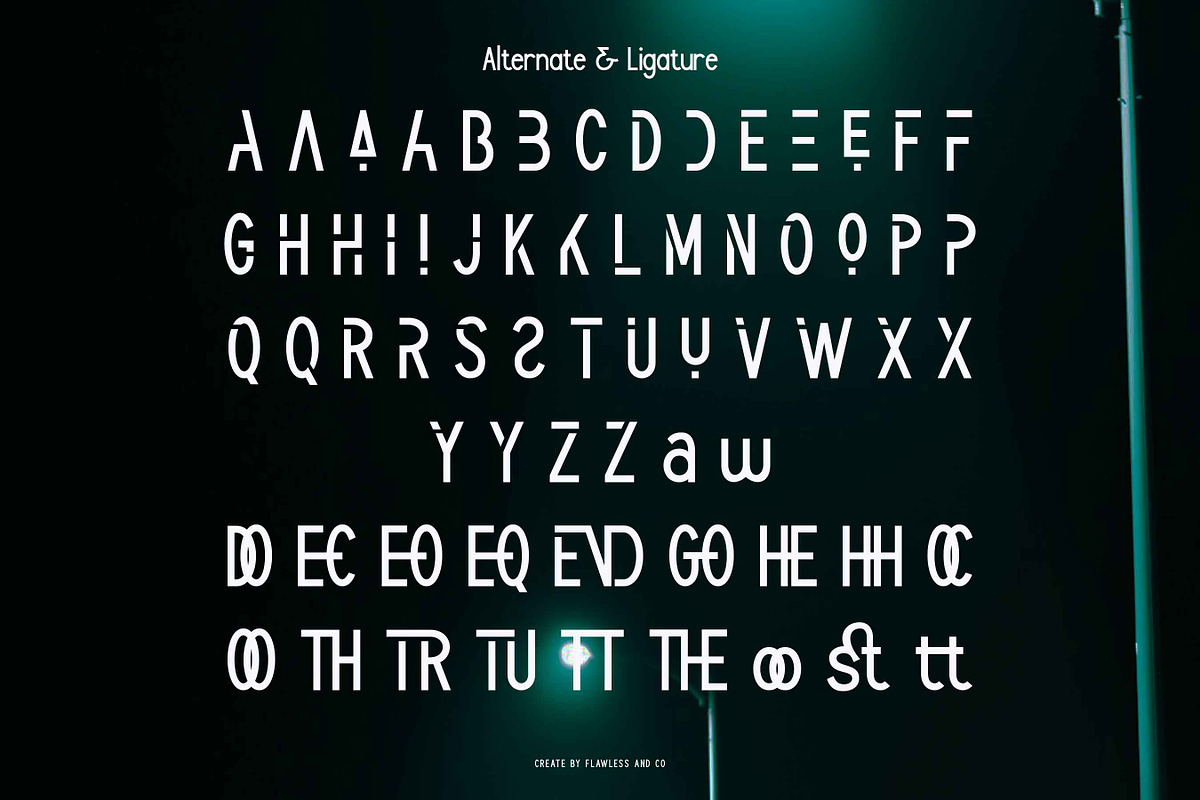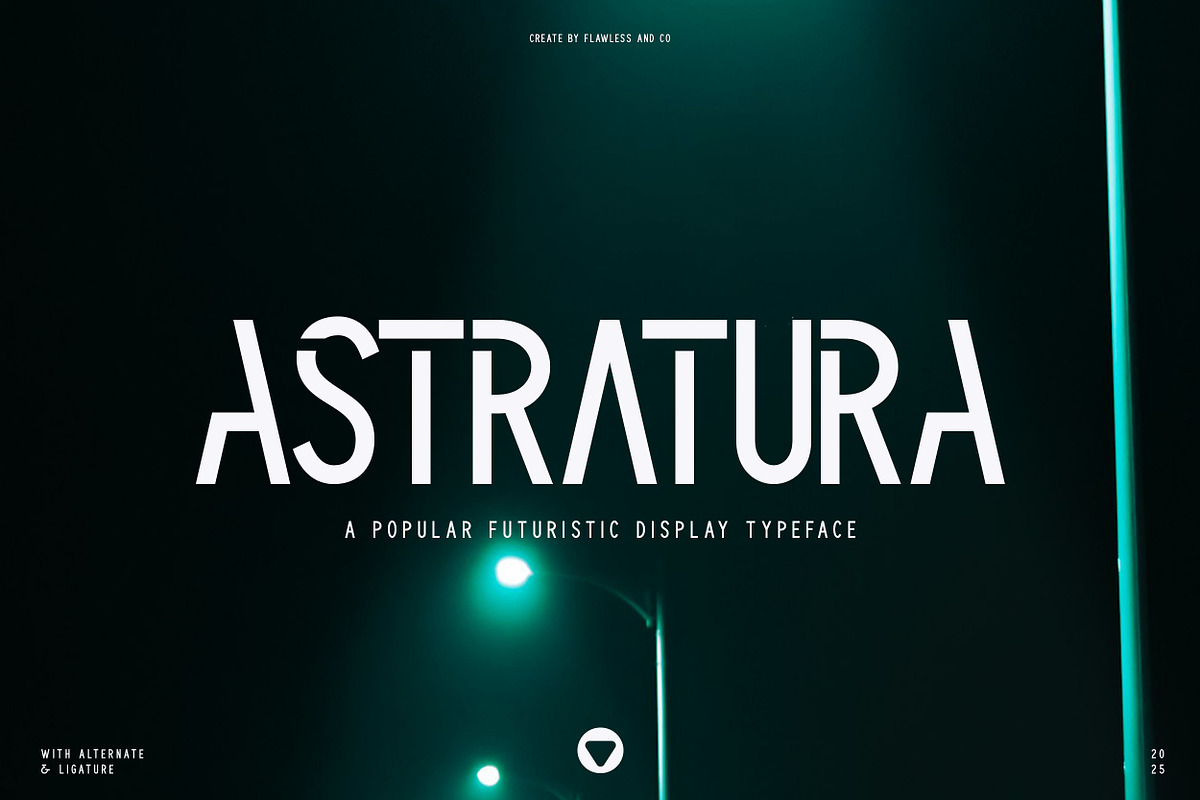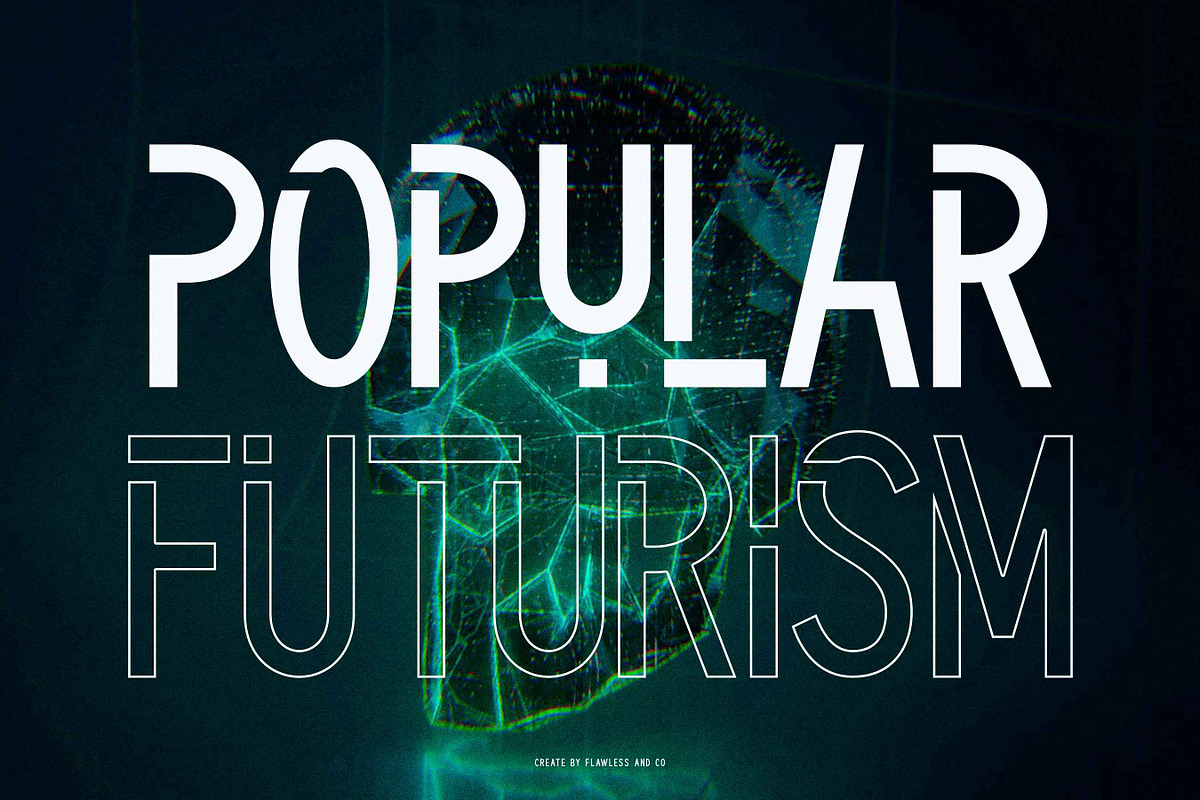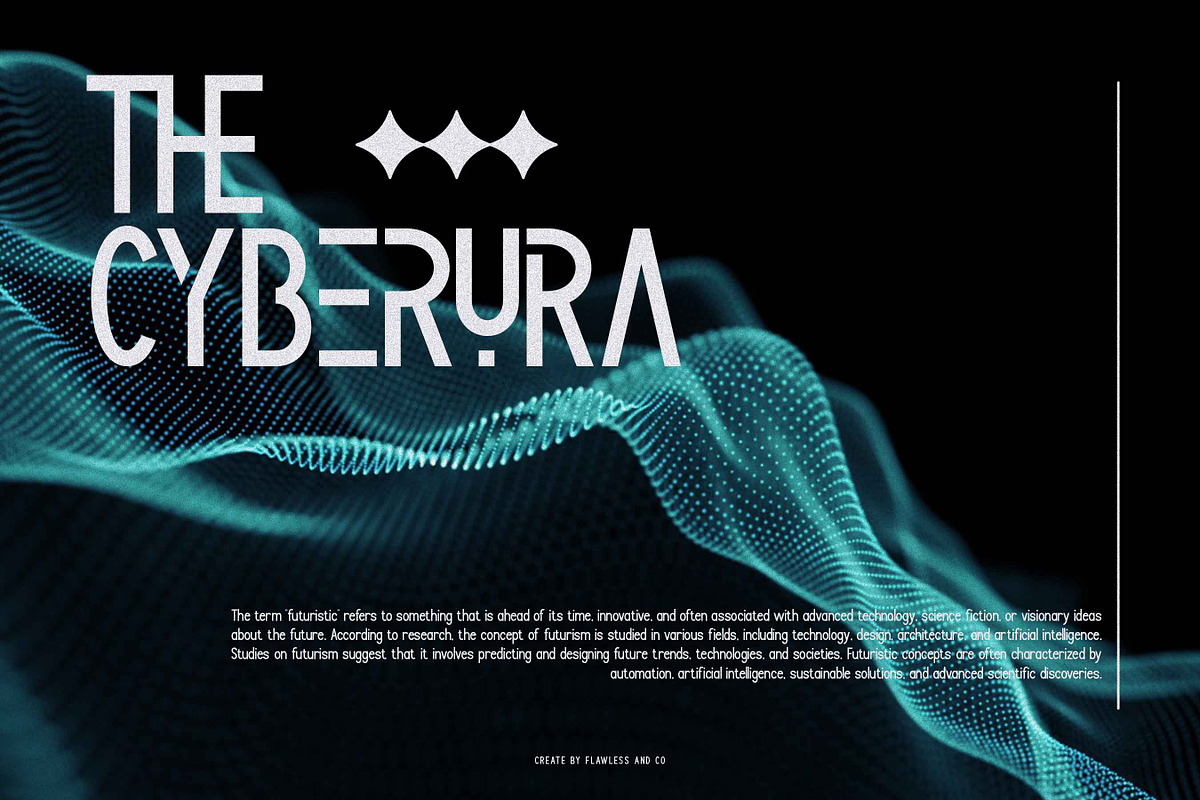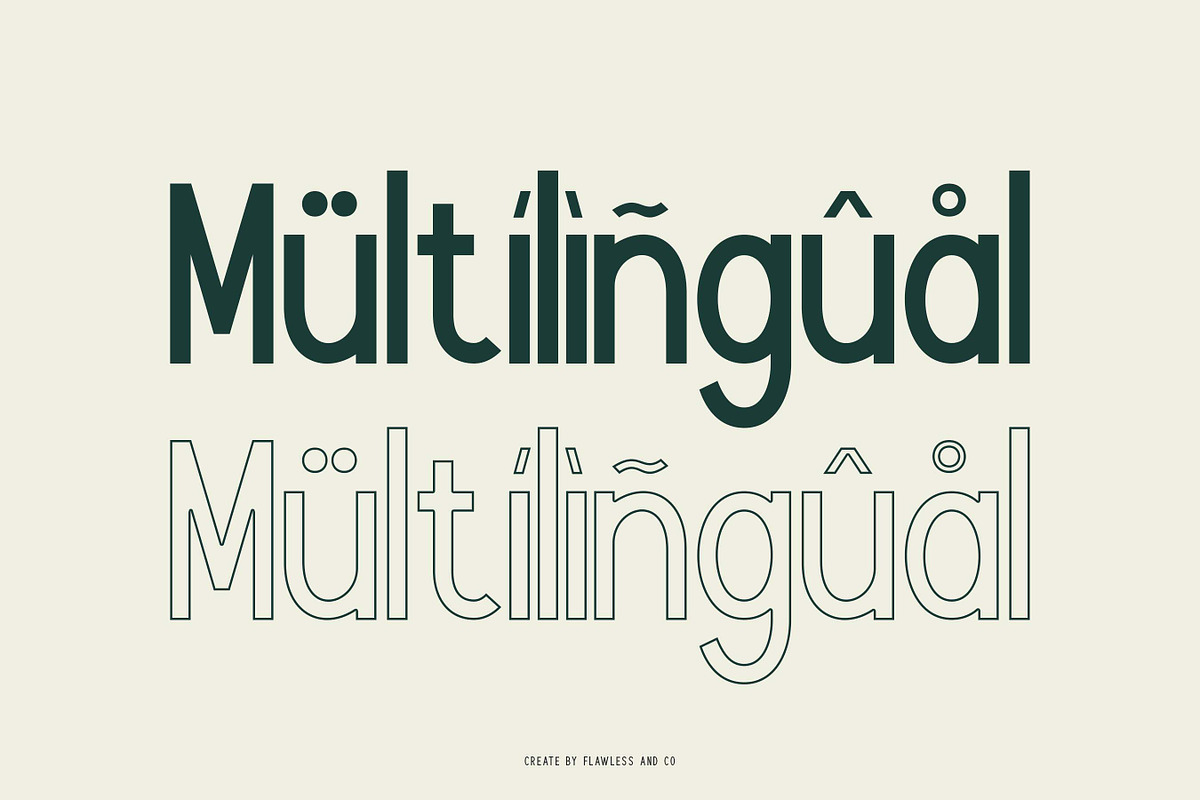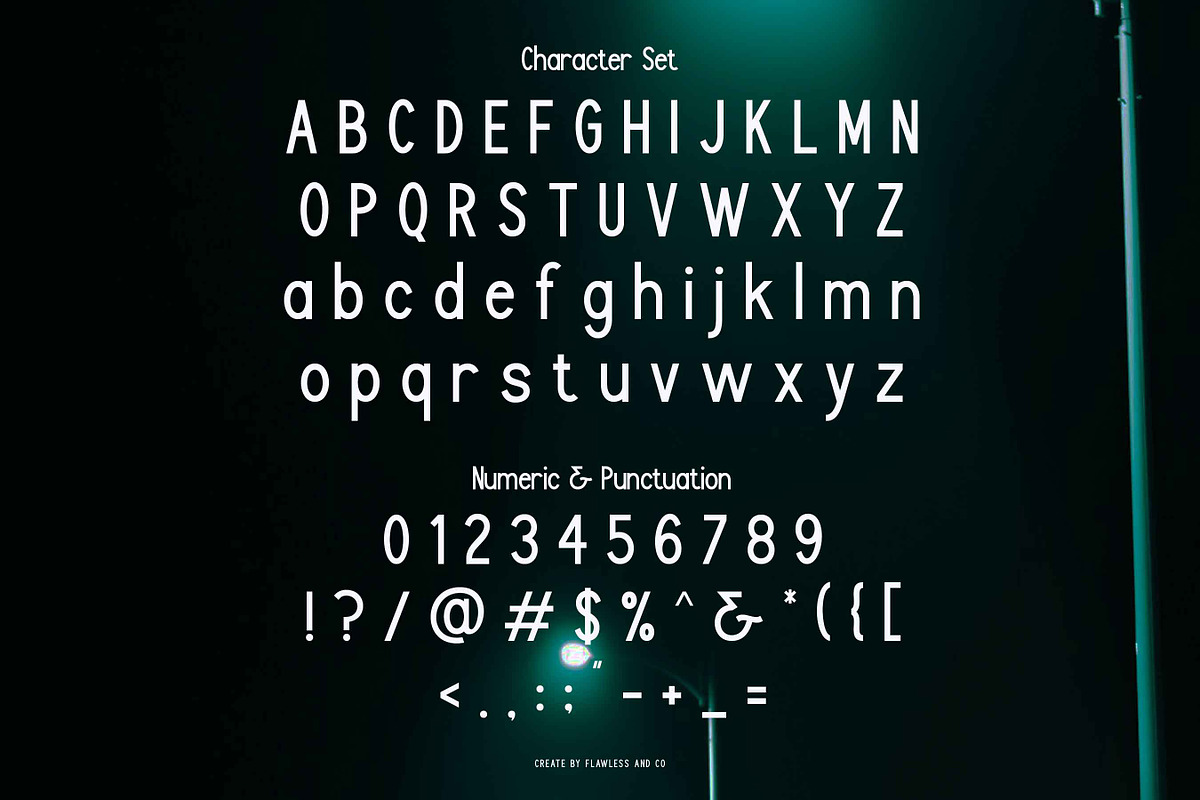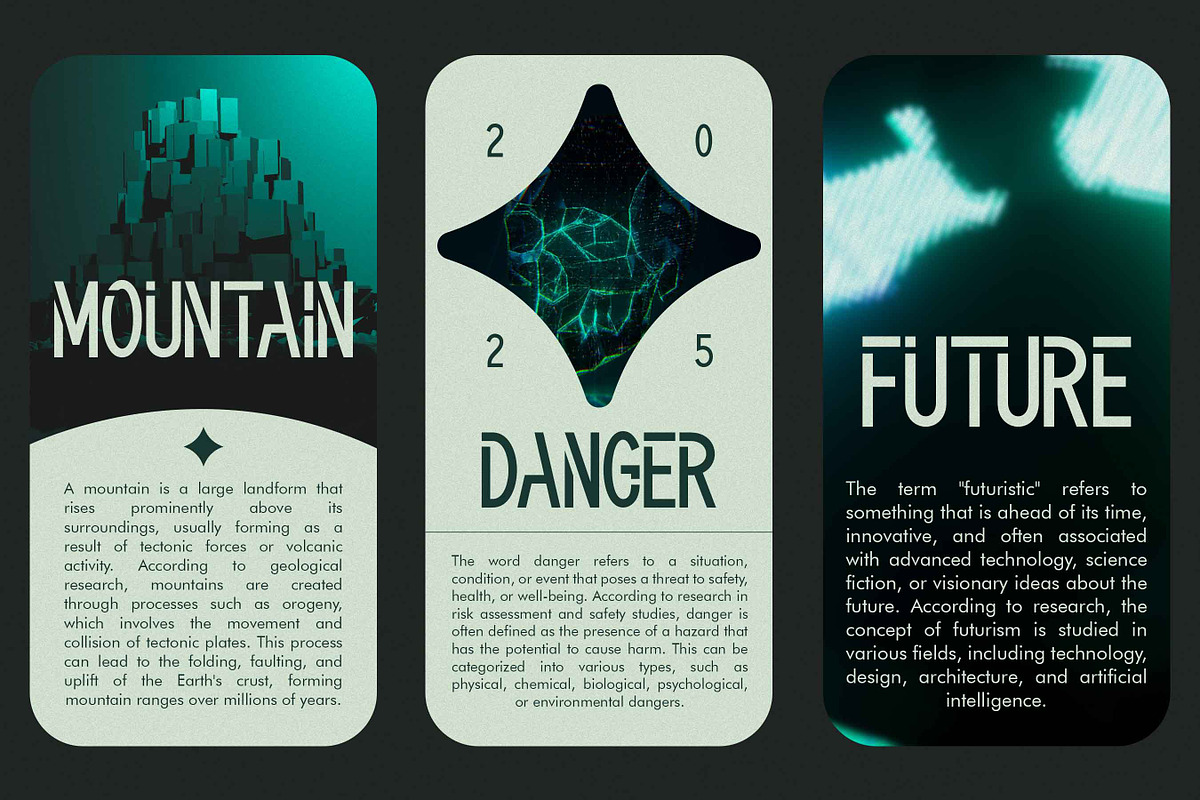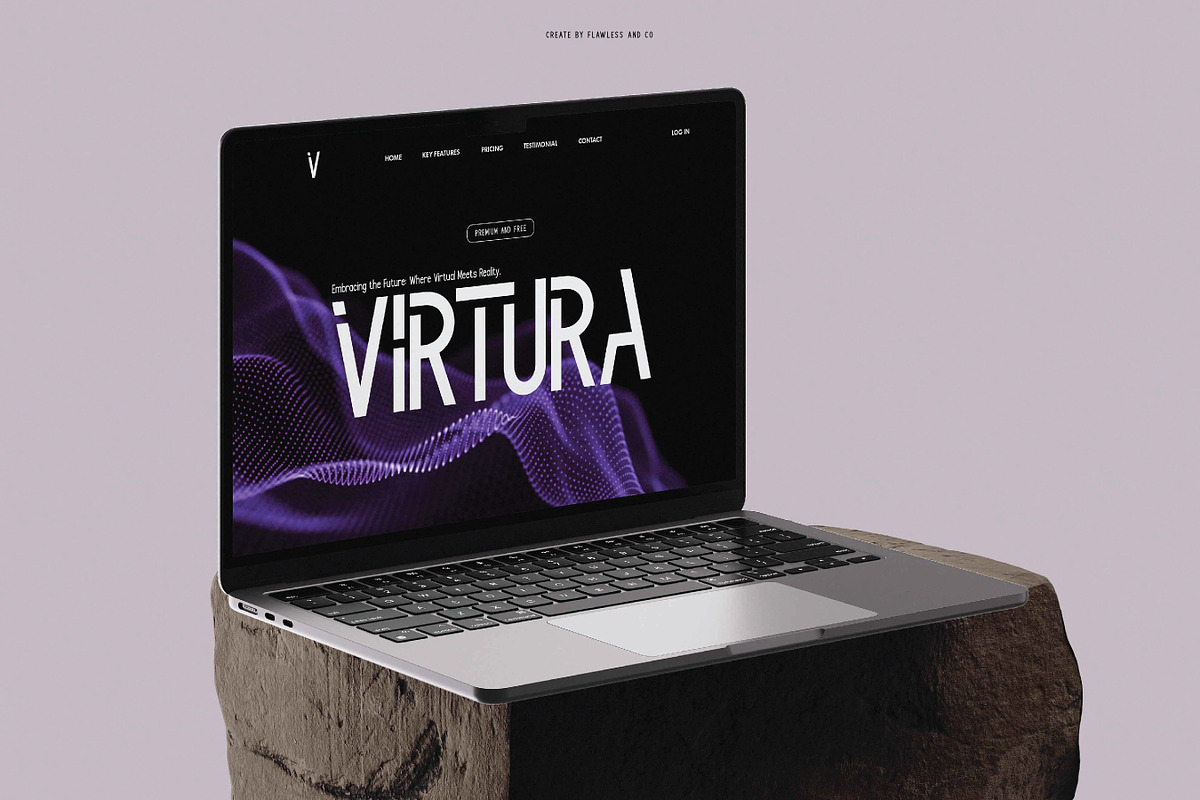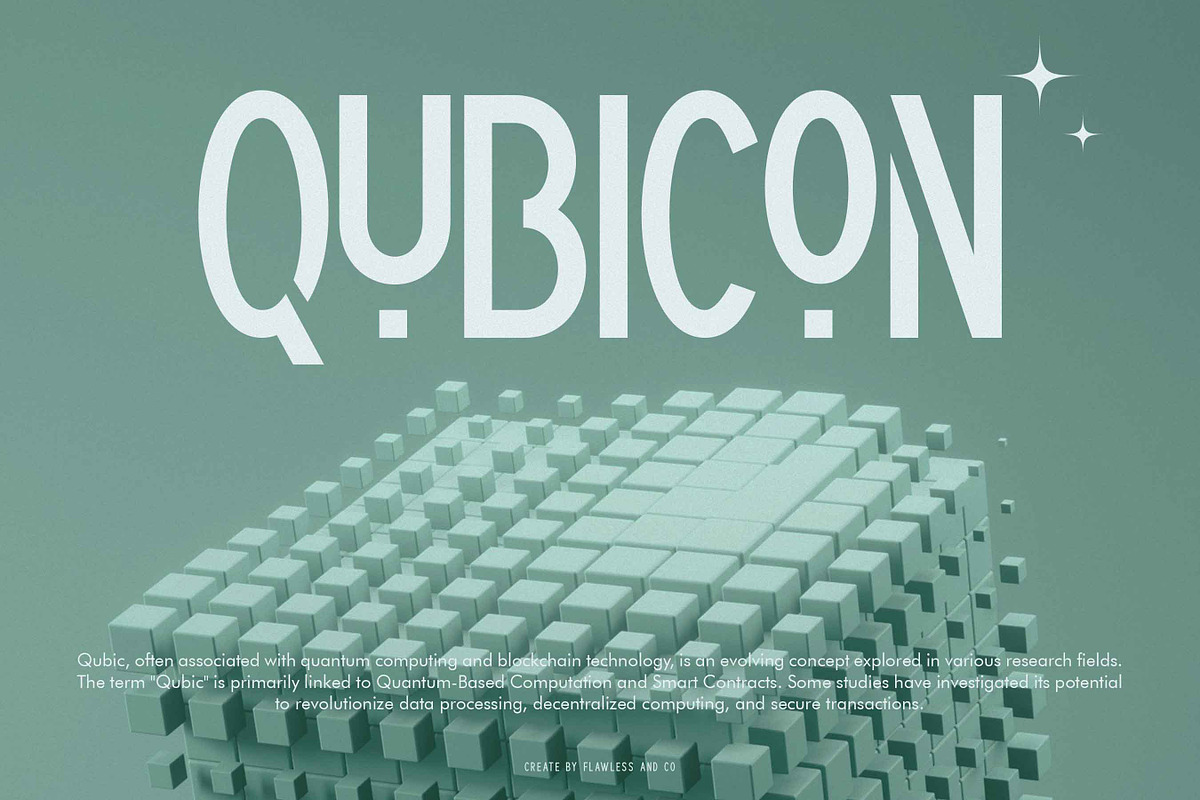
Astratura - Futuristic Font
Astratura is a futuristic font that blends sleek, modern aesthetics with a cutting-edge design. Its bold structure and sharp edges make it perfect for technology branding, sci-fi movie titles, gaming interfaces, space-themed projects, futuristic posters, and digital designs. Let your creativity reach the future with Astratura.
Multilingual Uppercase alphabet A-Z Lowercase alphabet a-z Numbers 0-9 Some punctuation